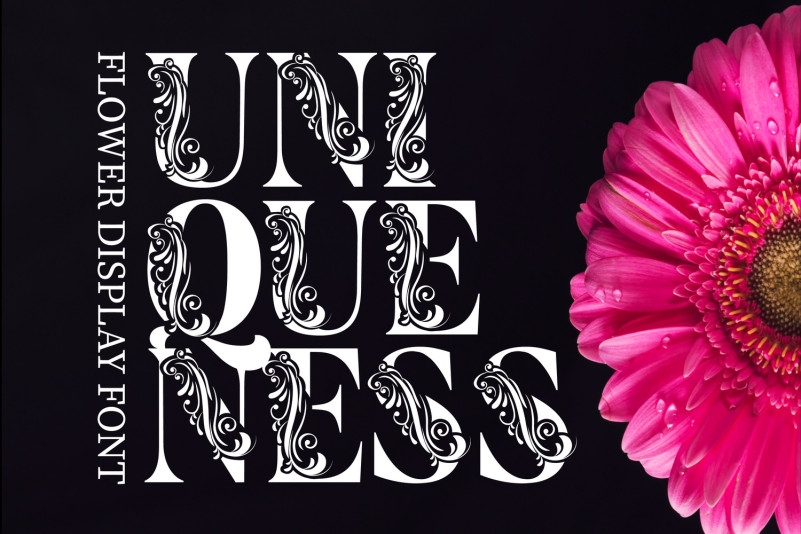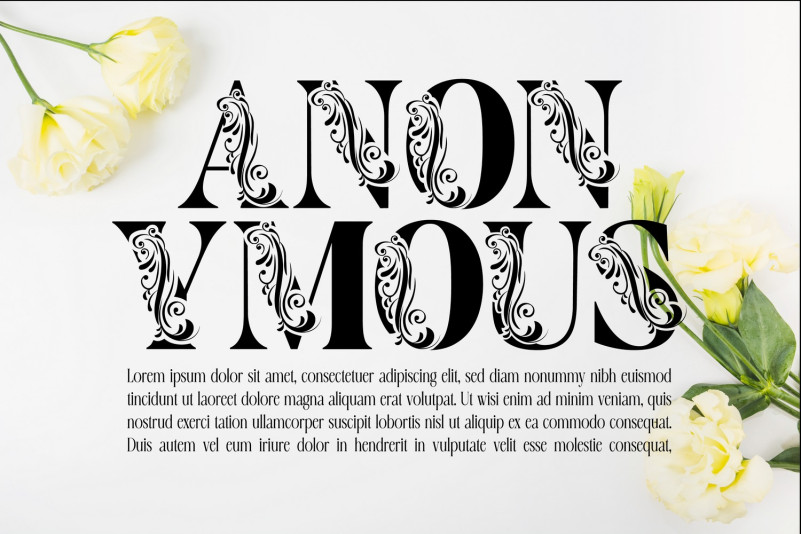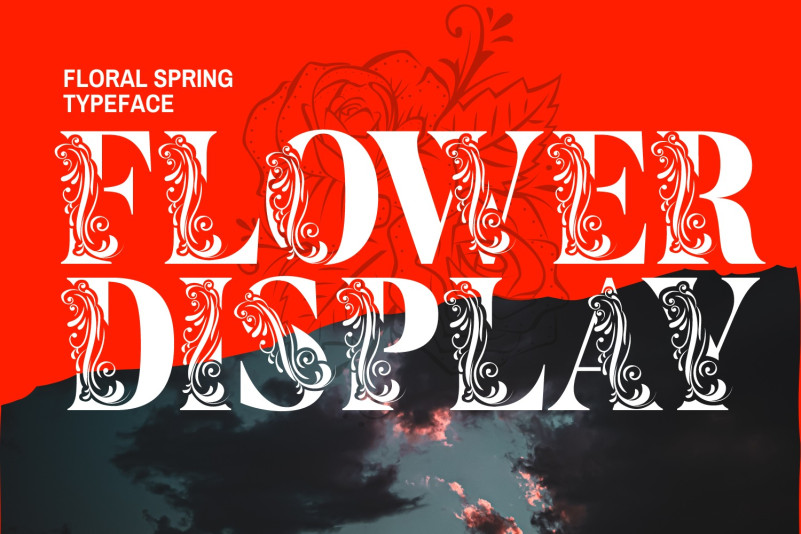
Flower Display Typeface
Flower Display Font – A Delicate Floral Font with Flowers and Leaves. This font is drawn with a composition of leaves and flowers so that it forms like letters. By using this hand drawn font, you will get a classy and luxury design. It’s an elegant and feminine font suitable for all kinds of headlines and decorative purpouses. It’s a perfect font for, all kinds of wedding stationary, invitations, natural logos, flower shops, packaging, social media posts and so much more!